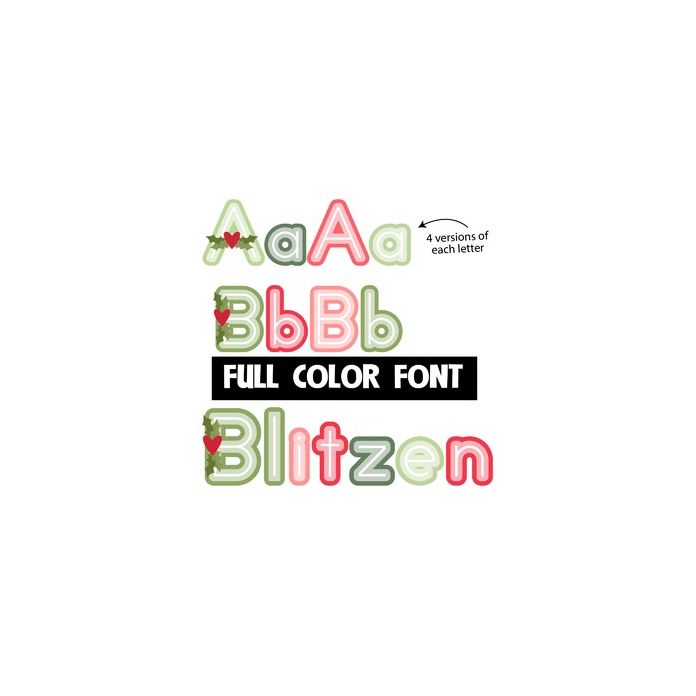
This full-color font features Christmas colors with an uppercase sporting holly leaves and hearts. There is a second uppercase without these features as well as a second lowercase you can access through Silhouette's glyph map.